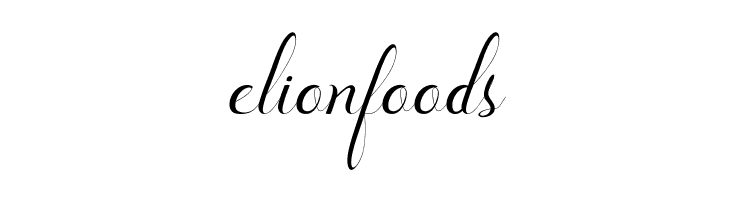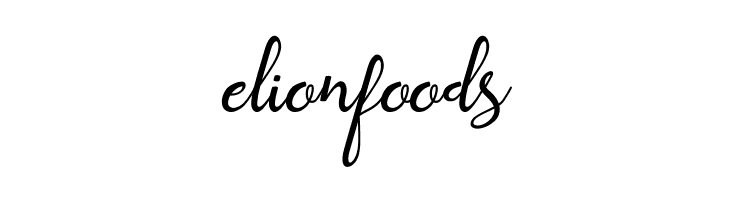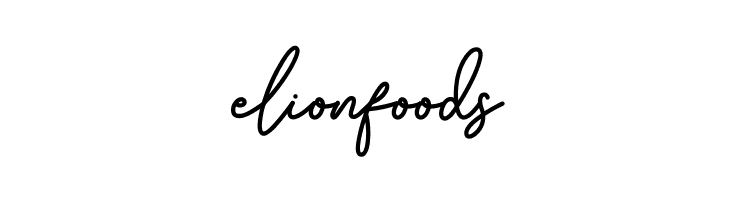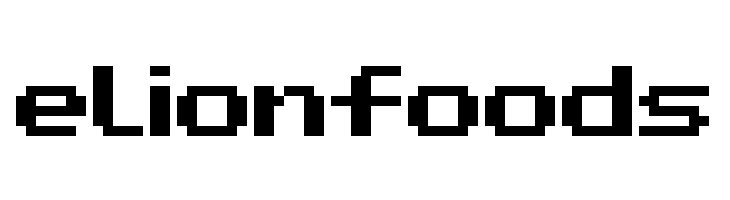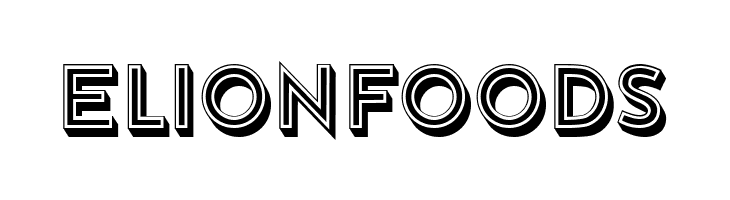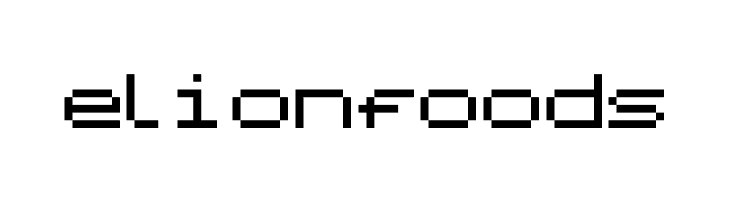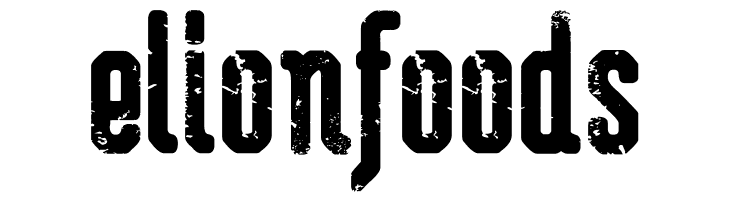
A graceful script font with flowing, interconnected letters and a sophisticated style.
An elegant and flowing script font with ornate uppercase and smooth lowercase letters.
An elegant, flowing script font with smooth, cursive lines and graceful curves.
A futuristic, pixelated font with a digital and geometric style.
A cursive script font with elegant, flowing lines and graceful curves.
A pixelated, retro-style font with a blocky, digital aesthetic.
A bold, geometric font with a three-dimensional Art Deco style.
A pixelated, retro digital font with a blocky, grid-like structure.
A bold, distressed Victorian-style font with a vintage, textured appearance.